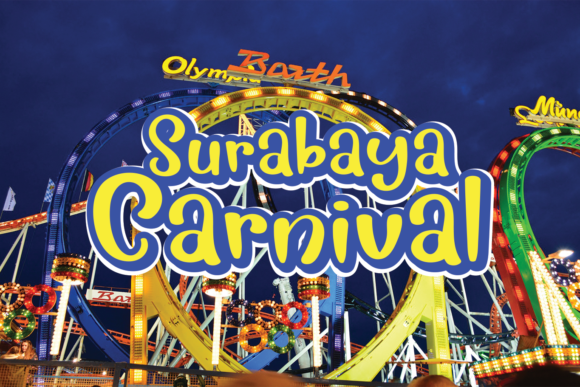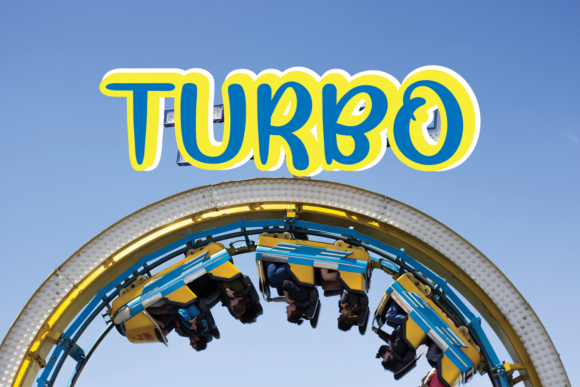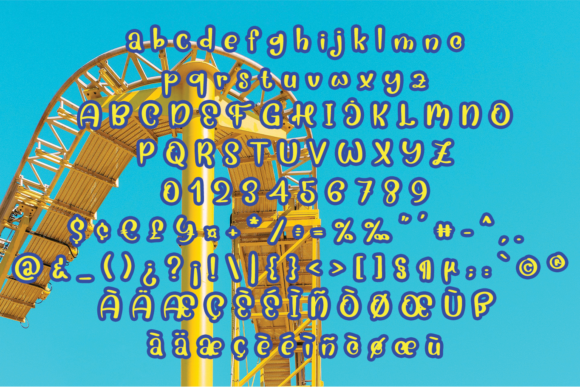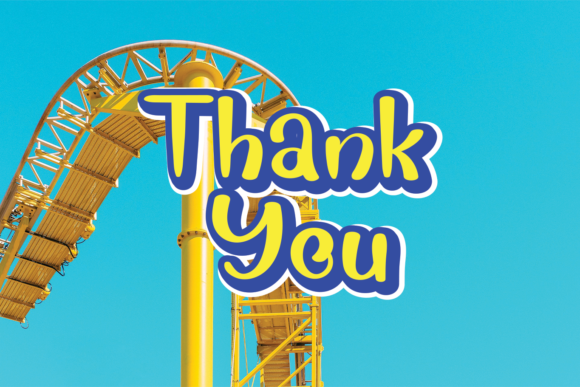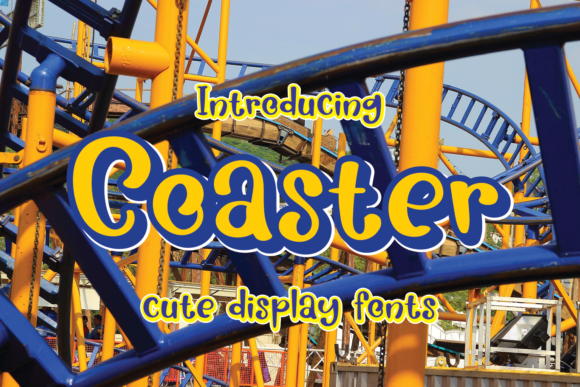
Introducing Coasters Font: The Perfect Blend of Cuteness and Quirks
Are you on the hunt for a font that can add a touch of whimsy and playfulness to your designs? Look no further than Coasters Font! This adorable display font is clean, quirky, and versatile, making it an excellent choice for a wide range of projects, from logos and branding to social media graphics and crafty DIY endeavors.
What Makes Coasters Font So Special?
Coasters Font is a unique and eye-catching typeface that boasts a distinctive charm. Its clean lines and rounded edges give it a friendly and approachable feel, while its quirky personality makes it stand out from more traditional fonts. Whether you’re designing a logo, creating social media graphics, or working on a crafty DIY project, Coasters Font is sure to bring a smile to your audience’s faces.
Coasters Font is an excellent choice for logos and branding projects. Its unique blend of cuteness and quirkiness makes it perfect for businesses that want to stand out from the crowd and establish a playful, approachable brand identity. Whether you’re launching a new startup or rebranding an existing company, Coasters Font can help you create a memorable and engaging visual identity.
Great for Social Media Graphics
In today’s digital age, social media graphics are an essential part of any marketing strategy. Coasters Font is a great choice for creating eye-catching social media graphics that will help you connect with your audience and build your brand. From Facebook posts to Instagram stories, Coasters Font can add a touch of personality and whimsy to your social media graphics.
Ideal for Crafty DIY Projects
If you’re a crafter or DIY enthusiast, you’ll love Coasters Font! This font is perfect for adding a personal touch to your handmade projects, from customized signs and labels to journals and planners. Coasters Font can help you create unique and eye-catching designs that showcase your creativity and personality.
Key Features of Coasters Font
• Cute and quirky design: Coasters Font boasts a unique and eye-catching design that’s sure to grab attention.
• Clean lines and rounded edges: The font’s clean lines and rounded edges give it a friendly and approachable feel.
• Versatile: Coasters Font can be used for a wide range of projects, from logos and branding to social media graphics and crafty DIY projects.
• Easy to read: Despite its quirky design, Coasters Font is easy to read, making it perfect for use in a variety of contexts.
Tips and Tricks for Getting the Most Out of Coasters Font
• Experiment with different colors: Coasters Font looks great in a variety of colors, so don’t be afraid to experiment and find the perfect hue for your design.
• Add texture and patterns: Adding texture and patterns to your design can help bring Coasters Font to life and add depth and interest to your design.
• Use it with other fonts: Coasters Font pairs well with other fonts, so feel free to experiment with different font combinations to create a unique and eye-catching design.
Coasters Font is a unique and versatile typeface that’s perfect for designers and crafters looking to add a touch of whimsy and playfulness to their designs. With its cute and quirky design, clean lines, and rounded edges, Coasters Font is sure to bring a smile to your audience’s faces. Whether you’re designing a logo, creating social media graphics, or working on a crafty DIY project, Coasters Font is an excellent choice. So why wait? Download Coasters Font today and start creating unique and eye-catching designs that showcase your creativity and personality!